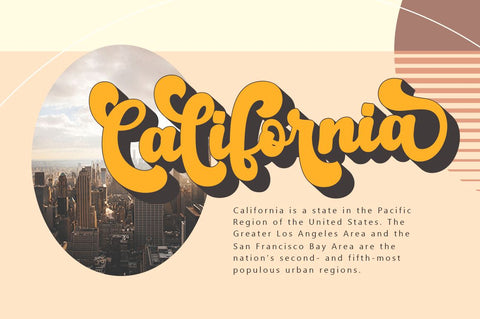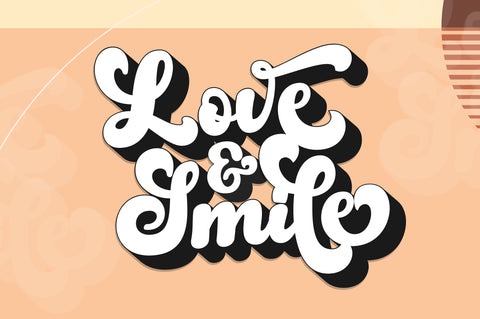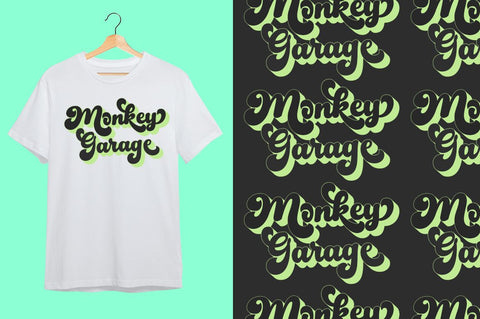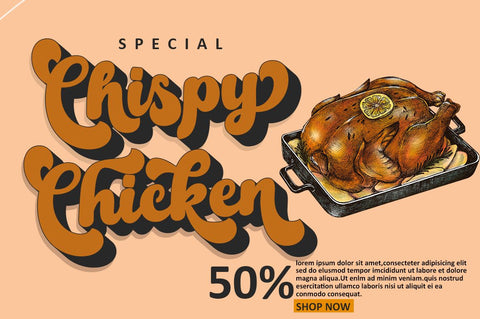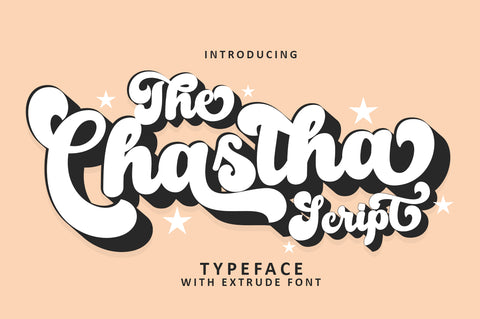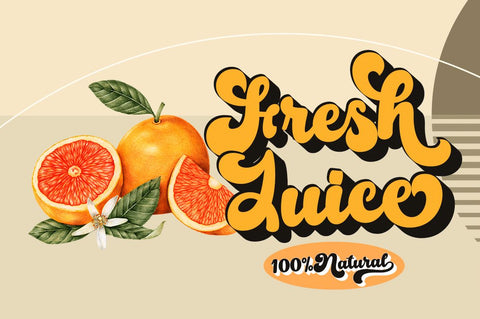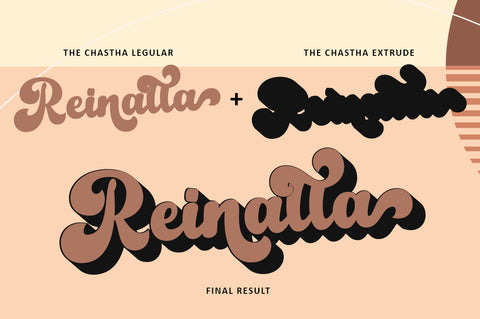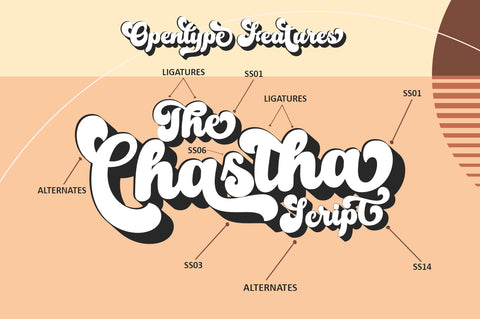
The Chastha-Retro font
The Chastha Script
Chastha Script is a romantic typography. sans, an elegant & fun vintage script font. Can be used for various purposes such as logos, wedding invitations, t-shirts, letterhead, signage, news, posters, badges etc.
Chastha Script features 521+ glyphs and extruded fonts, alternate characters, ligatures, strokes, and multiple language support.